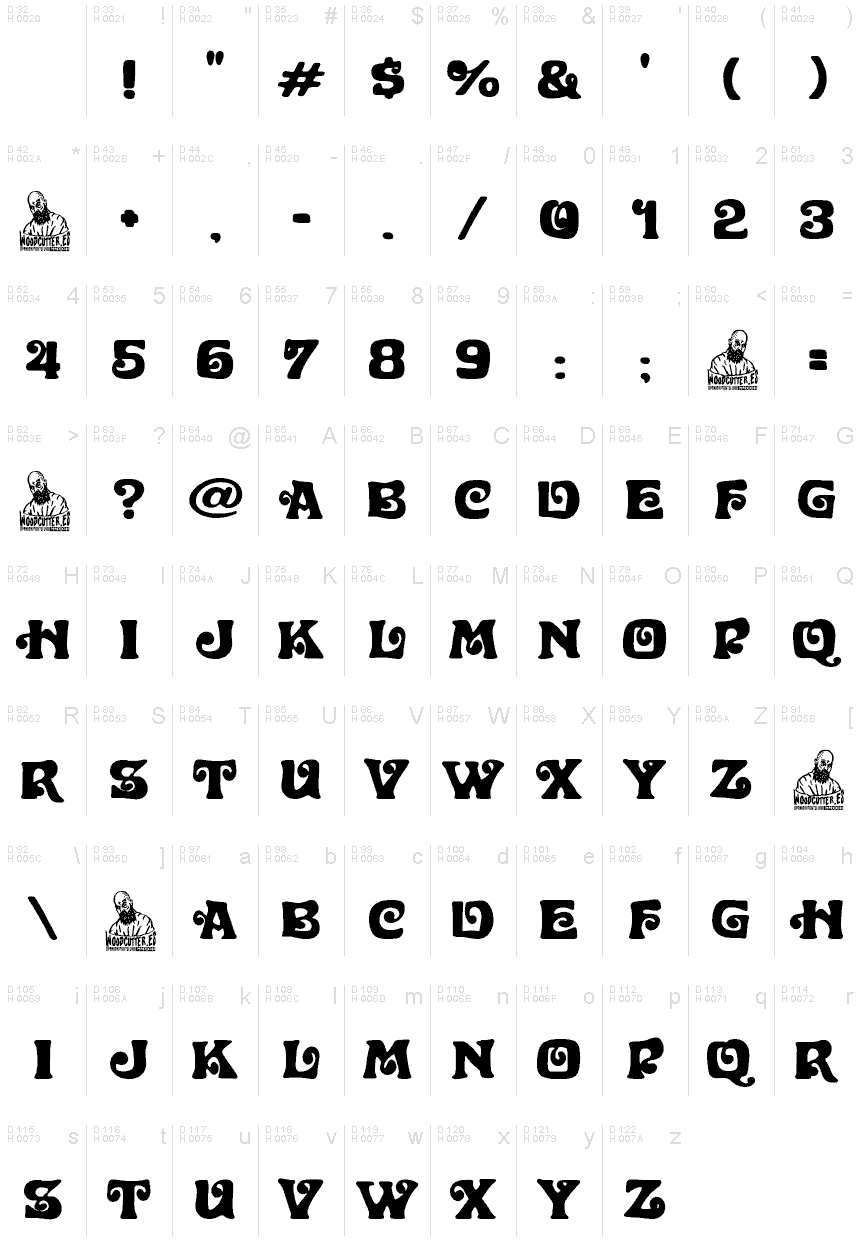
The Baroque Club
The Baroque Club font by Woodcutter is a display, bold font with a mysterious and bizarre look. Inspired by the gothic and retro styles, this font gets to capture immediate attention and provoke thoughts. Letters feature small closed-up cutouts that are intricate enough to enhance the visual appeal of each word without overwhelming.
Use The Baroque Club in logo or brand design for rock or metal bands, book cover titles, headline texts for posters and brochures, social media design captions or graphics, video game design typography elements, scrapbooking title pages for creative print projects, etc.